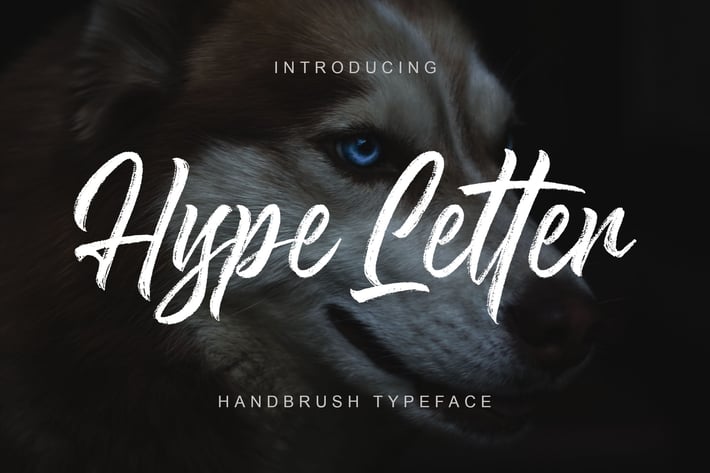
Hype Letter - Handbrush Typeface
Introducing a new Handbrush typeface called Hype Letter. Hype Letter good for signature logo, wedding invitation, romantic quote, logotype, poster, social media kit, book cover, tshirt design, packaging and any more.